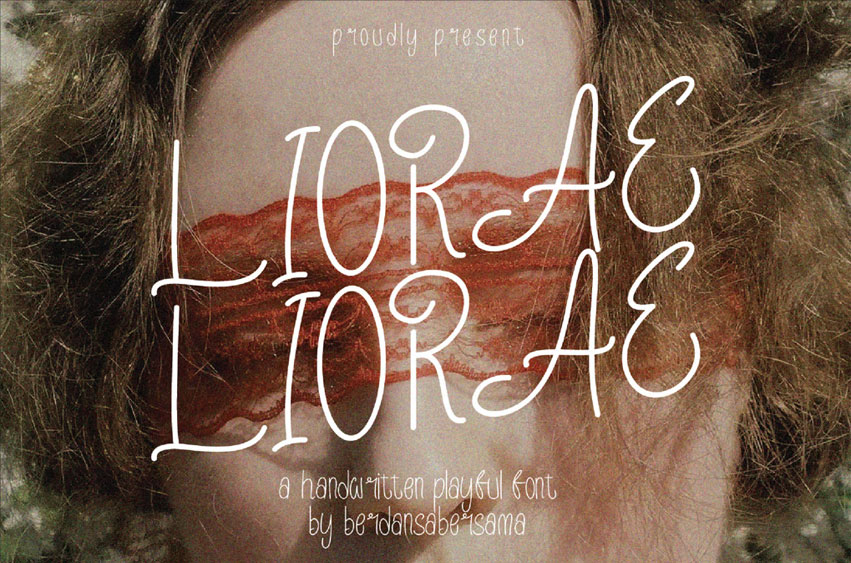
Liorae Font
Liorae Font is a playful and whimsical handwritten font that brings a sense of fun and creativity to any project.
Its fluid, looping strokes and quirky letterforms give it a personal and artistic vibe, making it perfect for designs that need a unique, expressive touch.